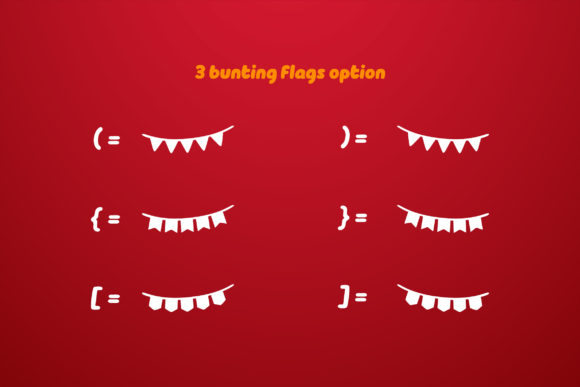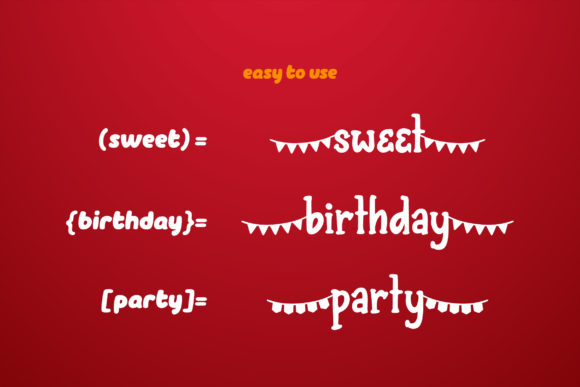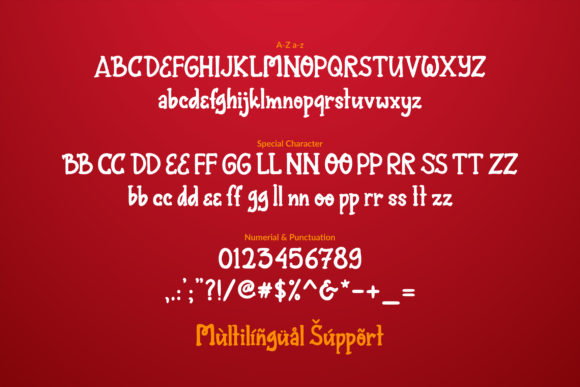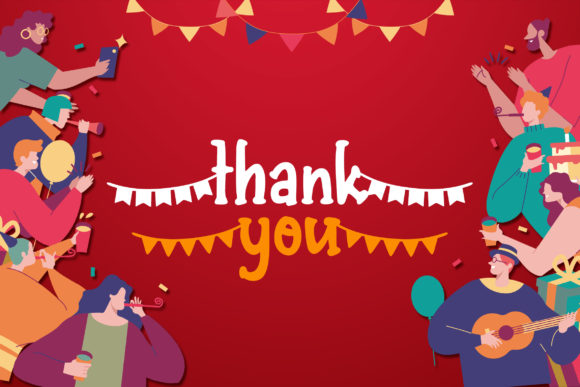
The Ultimate Party Font: Fontarian Party Font
You know that feeling when you’re brainstorming ideas for a project and suddenly, a spark of creativity hits you? It’s like the whole room lights up, and you can’t wait to dive in and bring your vision to life. For designers, this moment is what it’s all about – finding that perfect combination of style, functionality, and personality. And when it comes to creating festive and fun designs, the right font can make all the difference.
Enter the Fontarian Party Font, a delightful display font that’s perfect for adding a touch of whimsy to your projects. With its decorative party flags and playful feel, this font is a must-have for greeting cards, decoration projects, and holiday crafting. Whether you’re designing for a client or creating something special for a loved one, the Fontarian Party Font is sure to bring a smile to their face.
- Unique Characteristics: The Fontarian Party Font features a unique blend of modern and vintage elements, with intricate details and ornaments, making it ideal for creating eye-catching designs and headlines.
Fontarian Party Font Review
Overall, I was really excited to dive into the Fontarian Party Font, but as I dug deeper, I found both great strengths and some areas that could use improvement. ✨ Here are my honest thoughts:
- One of the things I love about Fontarian Party is its unique, quirky aesthetic. It’s perfect for adding a touch of whimsy to digital products or marketing materials.
- The font’s x-height is great, making it easy to read even at smaller sizes.
- It’s also well-suited for titles and headings, with a clear, bold structure.
However, there are some limitations that prevented me from giving Fontarian Party a full 5-star rating. ⚠️ Specifically:
- The font can be a bit too playful and cartoonish for more formal or professional applications.
- It’s not ideal for body text, as it can be a bit fatiguing to read at length.
- The font family is relatively small, with limited styles and weights available.
Overall, I think Fontarian Party is a great choice for designers looking for a fun, eye-catching font for a specific project. Just be mindful of its limitations and use it judiciously.
Getting the Most Out of Fontarian Party Font
To get the most out of Fontarian Party Font, consider the following tips:
- Use it for headings and titles to add a touch of elegance and sophistication.
- Combine it with bold or italic styles to create contrast and emphasis.
- Experiment with different font sizes to create visual interest.